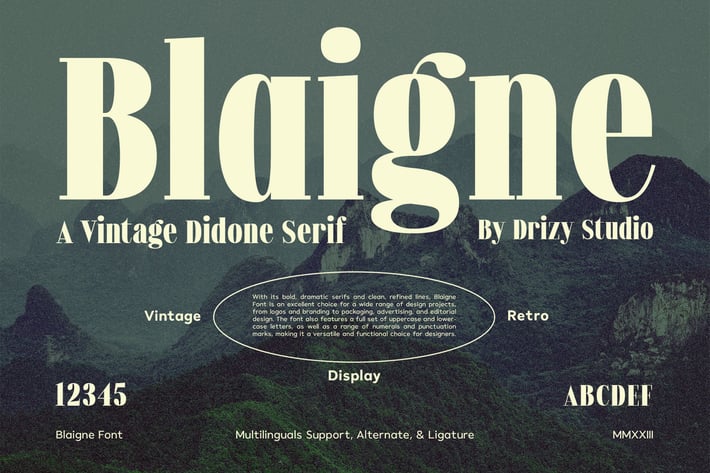
Blaigne - Serif Vintage Font
Blaigne is a Vintage Didone Serif Font from Drizy studio. Offering all the basic styles you will need for any oldie and vintage theme and projects.
Blaigne Features:
Uppercase & Lower Case
Multilinguals
Alternates